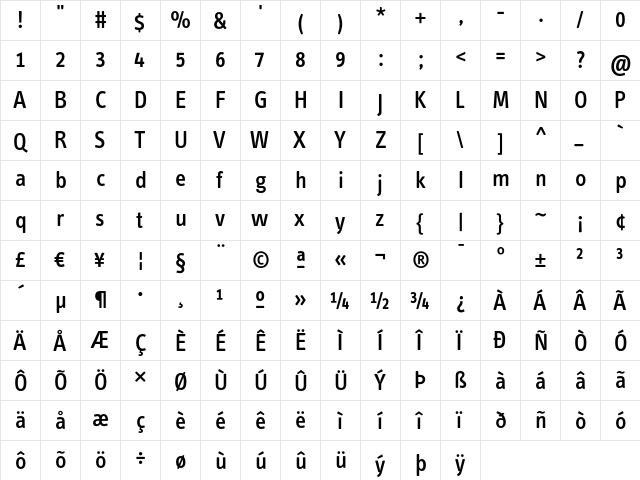
InfoTextMediumTf Roman
Design Context for InfoTextMediumTf Typeface
InfoTextMediumTf takes a measured approach to typography — its balanced proportions and neutral character make it a reliable workhorse for both digital and print work.